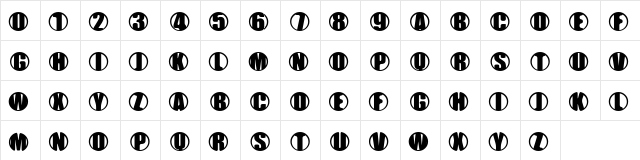
YChrome Contained
Design Context for YChrome Typeface
YChrome is a composed and adaptable typeface that performs quietly and consistently across a wide range of design contexts.